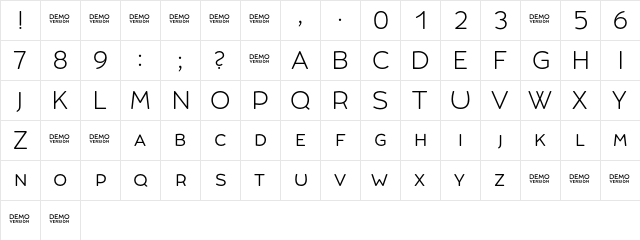
Umba Soft SC Light Demo
| Foundry | Anita Juergeleit |
| Designer | Anita Juergeleit |
Design Context for Umba Soft Typeface
Umba Soft offers clean, dependable letterforms without strong stylistic allegiance, making it a practical choice for designers who need flexibility. Its slender proportions lend an understated elegance to any composition.